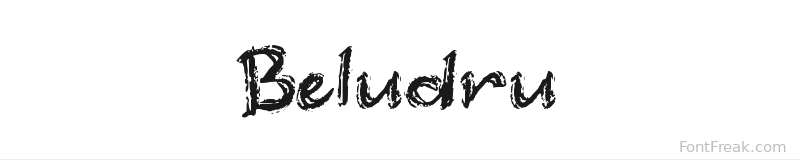
Beludru
About Beludru
Beludru is a captivating handwritten font designed by Wahyu Eka Prasetya, falling into the script category. This font exudes a charming, organic feel that captures the essence of natural handwriting, making it an excellent choice for a variety of creative projects. With its unique stroke weight and moderate contrast, Beludru features a playful yet elegant style that is both approachable and visually appealing. The spacing is well-balanced, allowing for clear readability while maintaining its artistic flair. Decorative elements throughout the typeface add character without overwhelming the design, making it perfect for those seeking a distinctive touch.
This font is particularly well-suited for wedding invitations, where its romantic and personal vibe can enhance the overall aesthetic. Additionally, Beludru works wonderfully for movie posters, lending an artistic edge that attracts attention. Restaurant menus will benefit from its inviting appearance, helping to create a warm atmosphere for diners. Content creators looking to add a personal touch to their social media graphics will also find this font to be an excellent choice, as it stands out while remaining easy to read.
In conclusion, Beludru stands out not only for its aesthetic qualities but also for its adaptability across various applications. Its combination of elegance and charm makes it a must-have for anyone looking to elevate their design work. Discover the unique appeal of this font with a Beludru font free download today and let your creativity flourish.